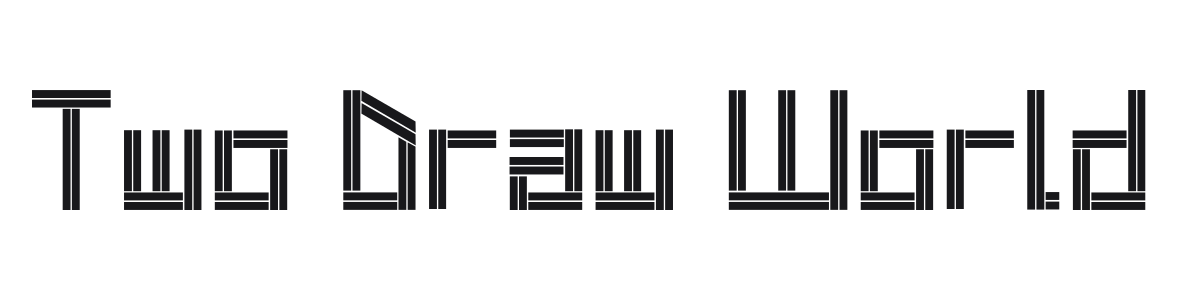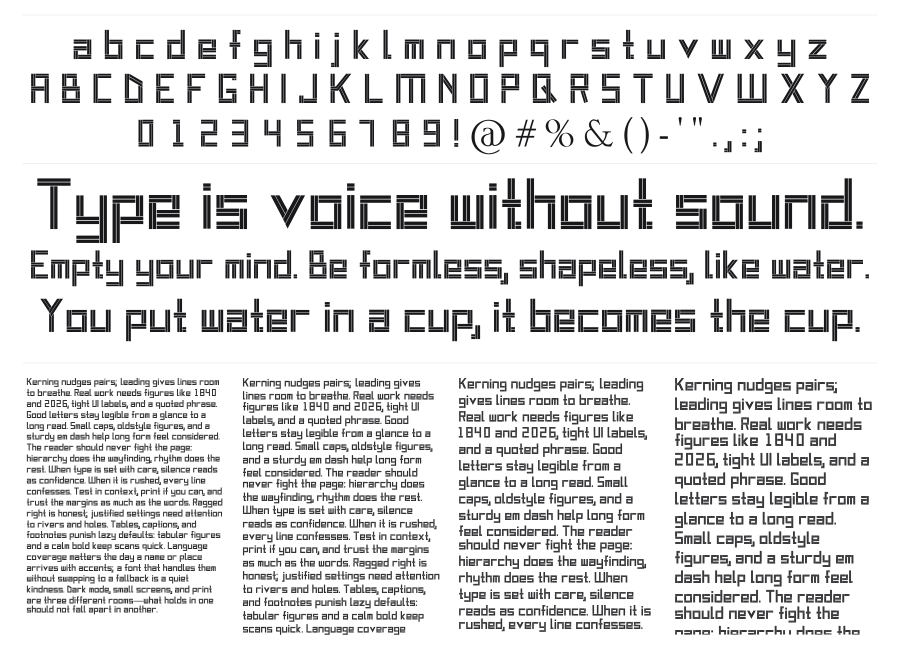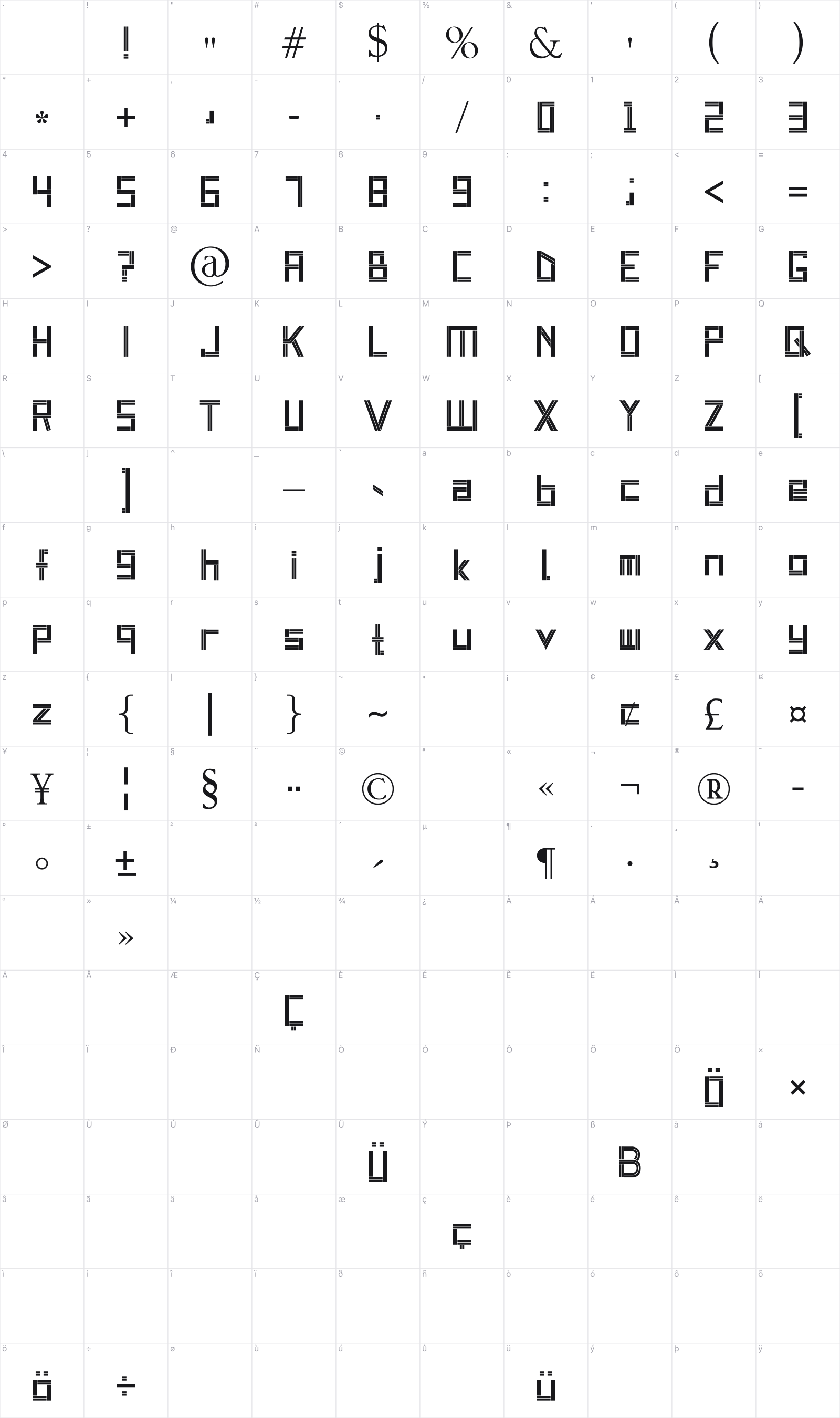
Two Draw World
Two Draw World is a bold modular display font built entirely from stacked horizontal bars and vertical slots, turning every character into a striped grid structure. The construction is strict and geometric, evoking circuit boards, architectural section drawings, and 1970s constructivist graphics. It commands attention at large sizes and reads as both retro and technical.